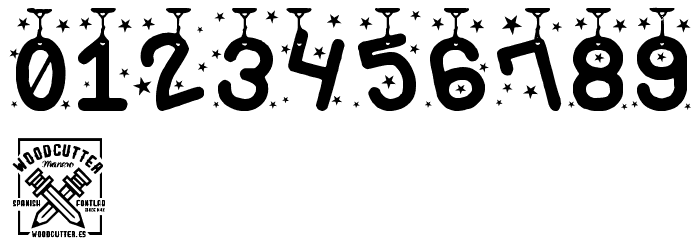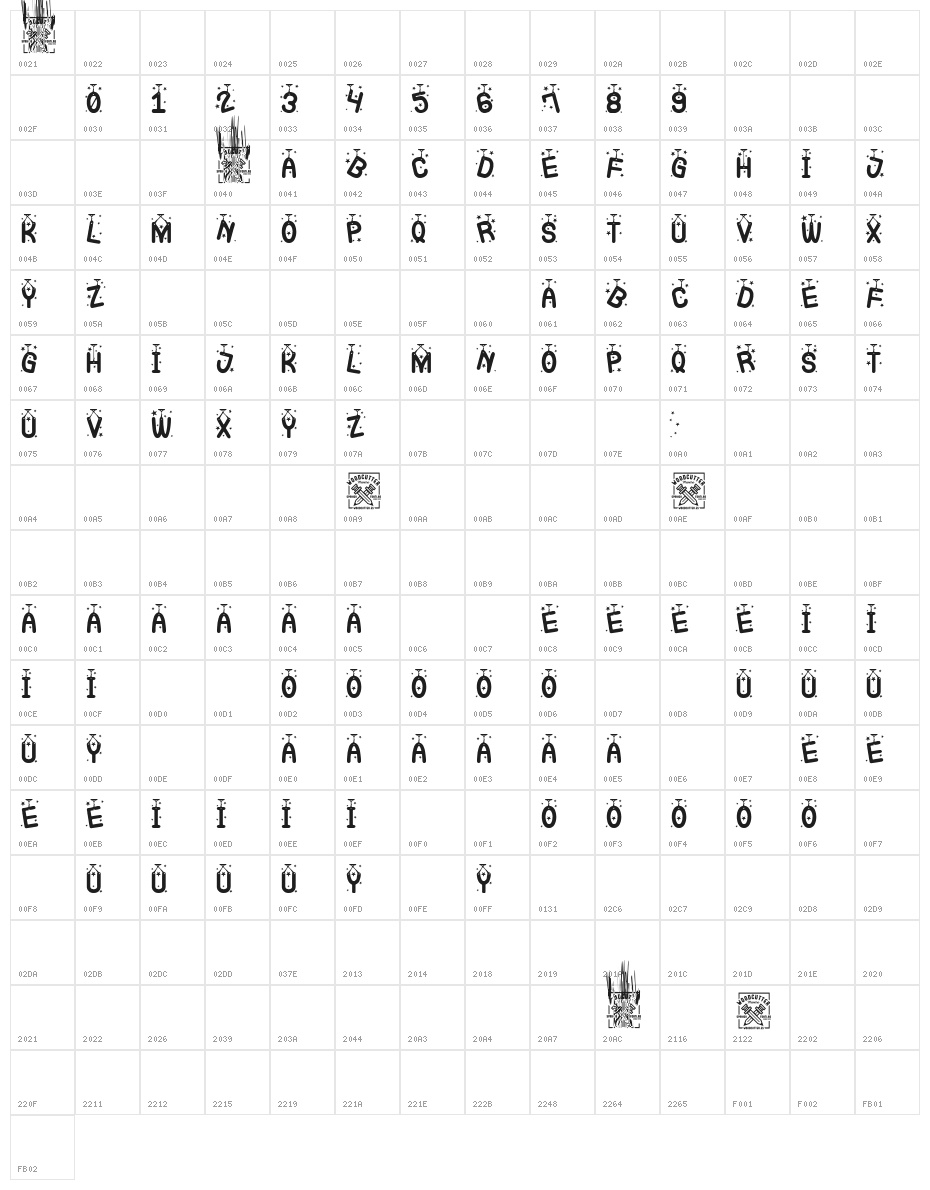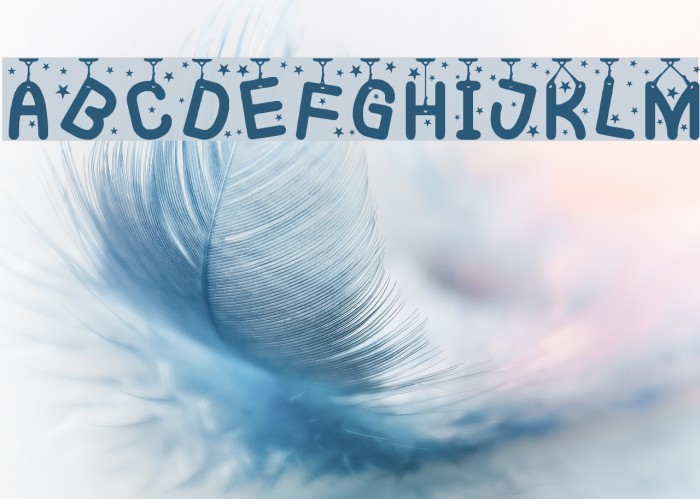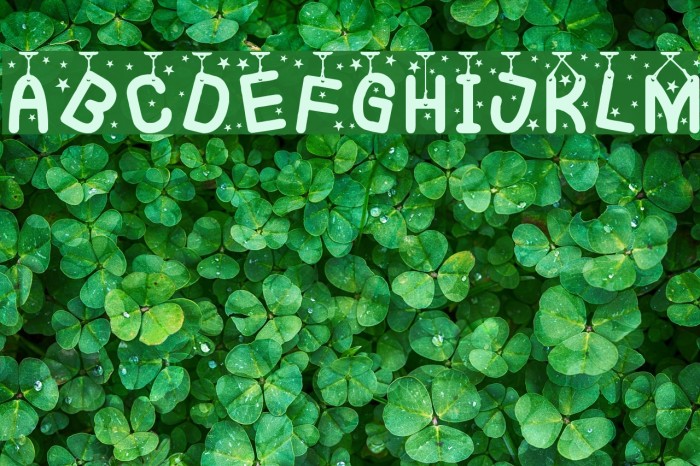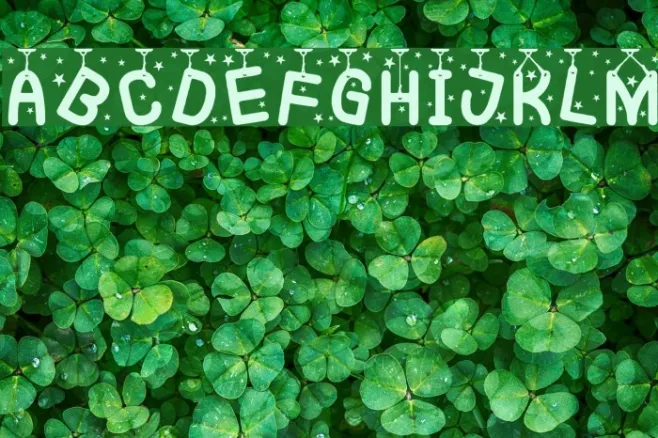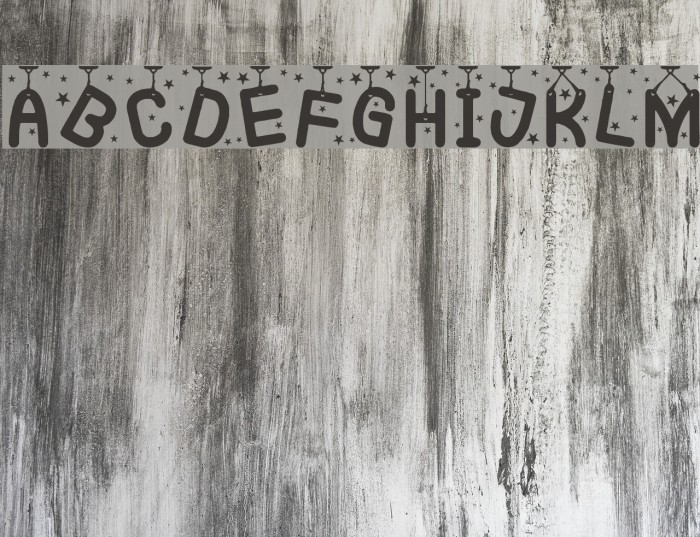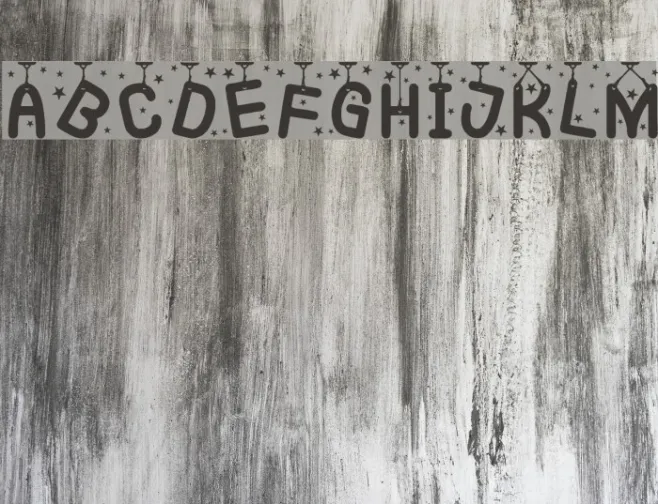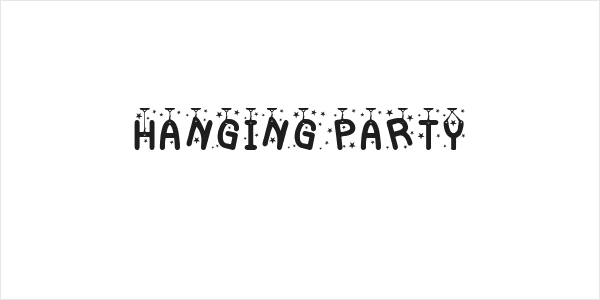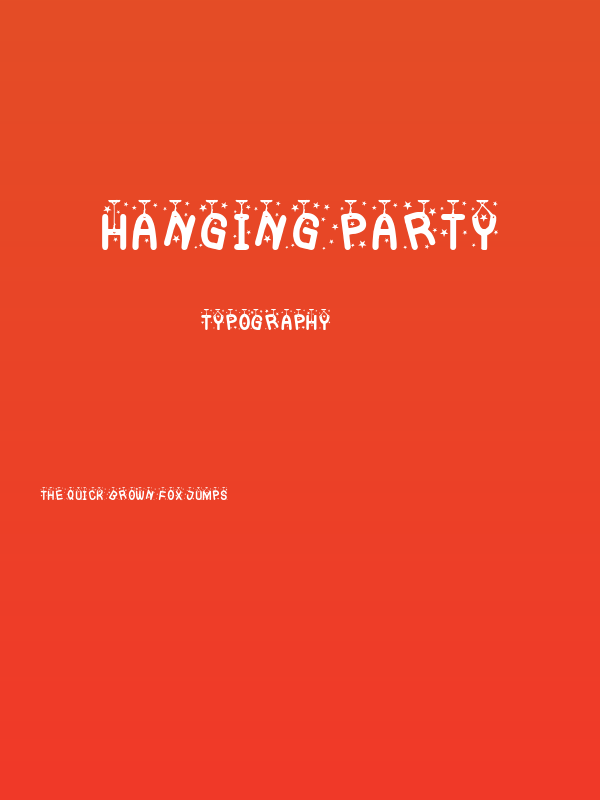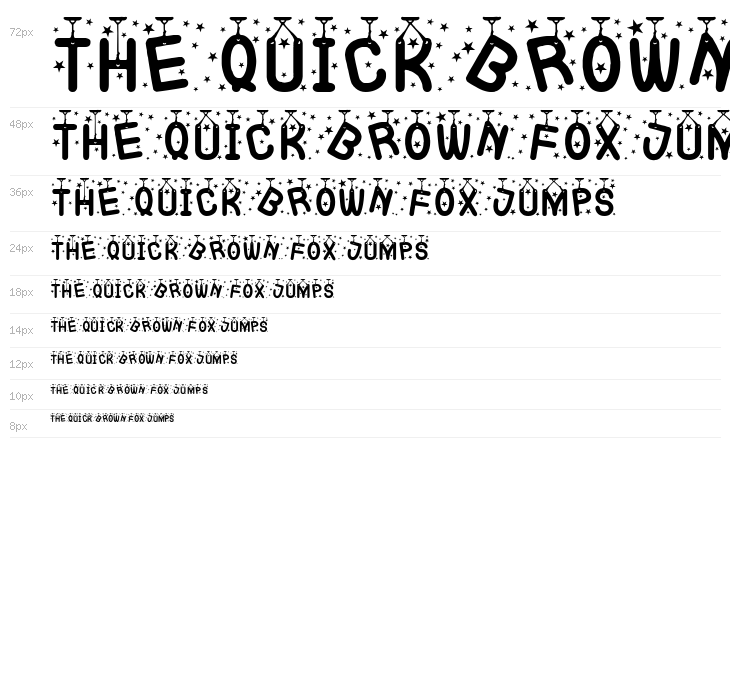
Hanging Party Font
Hanging Party Description
This playful and whimsical font features letters that appear to be hanging from strings, creating a festive and dynamic appearance. Each character is adorned with small stars, adding to its celebratory and lively feel. The font has a bold and rounded style, with a slightly irregular shape that enhances its informal and fun nature. The uppercase and lowercase letters maintain a consistent theme, while the numbers and special characters integrate seamlessly into the overall design. This font is perfect for projects that require a touch of creativity and joy, making it ideal for party invitations, children's books, and playful branding.
| Proposed Projects | Ideal for party invitations, children's books, playful branding, and festive event materials. |